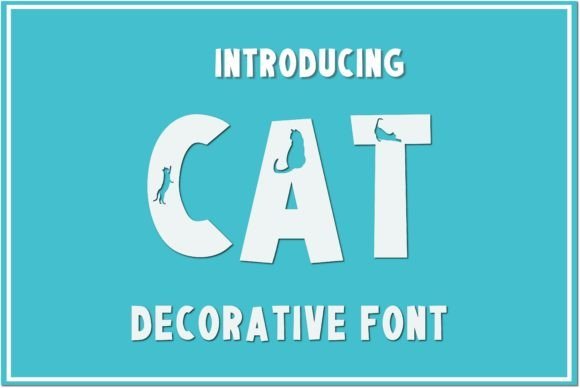
Introduction to Cat Lady Font
Cat Lady is a fun and friendly decorative font.
Whether you use it for cartoon-related designs, children’s games, or just any creation that requires a lovely touch, this font will be an amazing choice .
Key Features of Cat Lady Font
Why Choose Cat Lady Font?